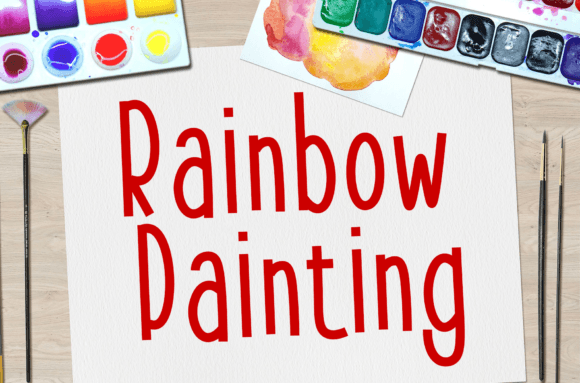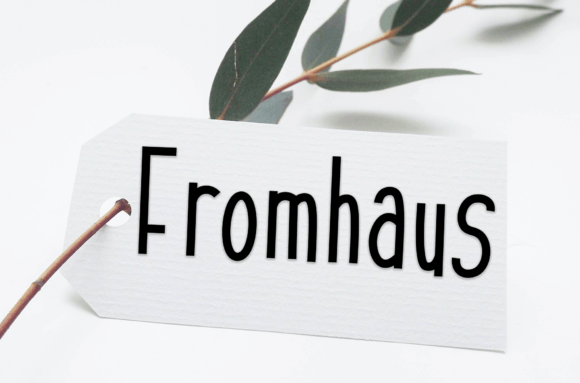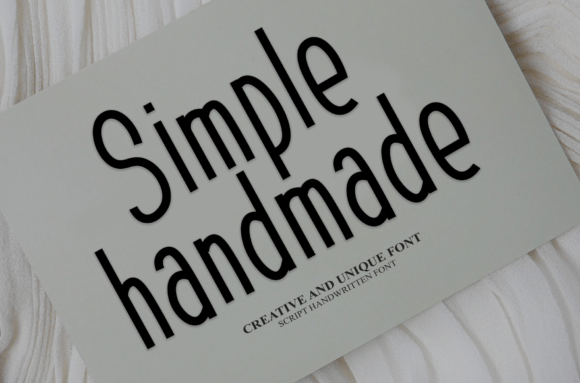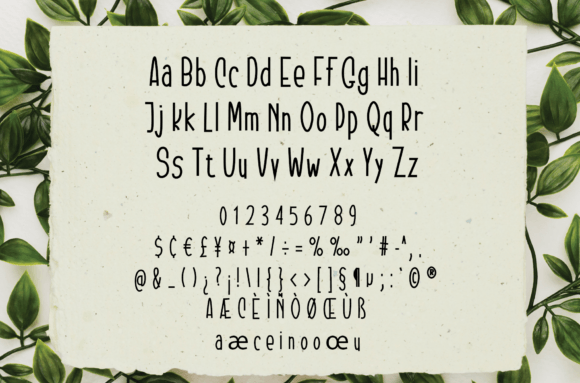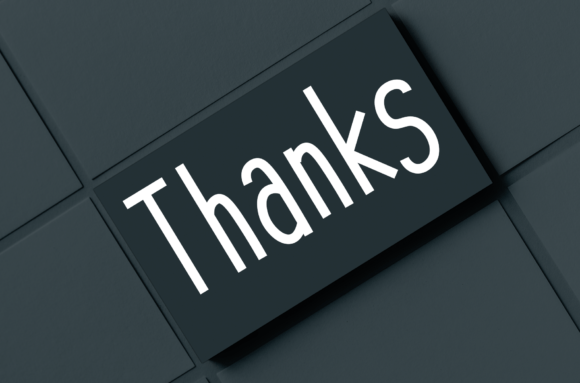
Introducing Garlic Powder Font: The Ultimate Addition to Your Design Arsenal
Are you tired of using the same old fonts in your designs? Look no further! Garlic Powder Font is here to revolutionize the way you create. This cool, simple, and playful handwritten font is incredibly versatile, making it the perfect addition to your favorite creative ideas. In this article, we’ll dive into the world of Garlic Powder Font and explore how it can elevate your designs to new heights.
The Characteristics of Garlic Powder Font
Garlic Powder Font is a unique and refreshing addition to the world of typography. Its handwritten style gives it a personal and approachable feel, making it perfect for designs that require a touch of warmth and personality. The font’s simplicity and playfulness make it incredibly easy to read and understand, ensuring that your message is conveyed clearly and effectively.
The Benefits of Using Garlic Powder Font
So, what makes Garlic Powder Font so special? Here are just a few benefits of using this amazing font in your designs:
- Versatility: Garlic Powder Font is incredibly versatile, making it suitable for a wide range of designs, from logos and branding to packaging and advertising.
- Ease of use: This font is incredibly easy to read and understand, making it perfect for designs that require clear communication.
- Unique style: Garlic Powder Font has a unique and refreshing style that will set your designs apart from the crowd.
- Playful feel: The font’s playful feel makes it perfect for designs that require a touch of whimsy and personality.
How to Use Garlic Powder Font in Your Designs
Using Garlic Powder Font in your designs is incredibly easy. Here are a few tips to get you started:
- Pair it with bold fonts: Garlic Powder Font pairs perfectly with bold fonts, creating a striking contrast that will make your designs stand out.
- Use it for headings: The font’s playfulness and personality make it perfect for headings and titles.
- Add it to your branding: Garlic Powder Font is perfect for branding and logos, giving your brand a unique and memorable identity.
Why Designers and Crafters Love Garlic Powder Font
Garlic Powder Font has quickly become a favorite among designers and crafters, and for good reason. Here are just a few reasons why:
- Easy to read: The font’s simplicity and clarity make it incredibly easy to read, even at small sizes.
- Flexibility: Garlic Powder Font is incredibly versatile, making it suitable for a wide range of designs and applications.
- Unique style: The font’s unique style and playful feel make it perfect for designs that require a touch of personality.
In conclusion, Garlic Powder Font is a game-changer for designers and crafters. Its unique style, playfulness, and versatility make it the perfect addition to your favorite creative ideas. Whether you’re looking to add a touch of personality to your branding, create eye-catching headings, or simply elevate your designs to new heights, Garlic Powder Font is the perfect choice. So why wait? Add Garlic Powder Font to your design arsenal today and watch your creations come alive!
Get Ready to Elevate Your Designs with Garlic Powder Font
Garlic Powder Font is the perfect addition to your design arsenal. Its unique style, playfulness, and versatility make it a must-have for designers and crafters. So what are you waiting for? Get ready to elevate your designs to new heights with Garlic Powder Font!